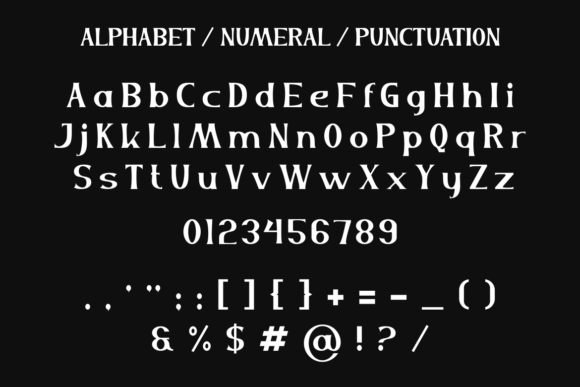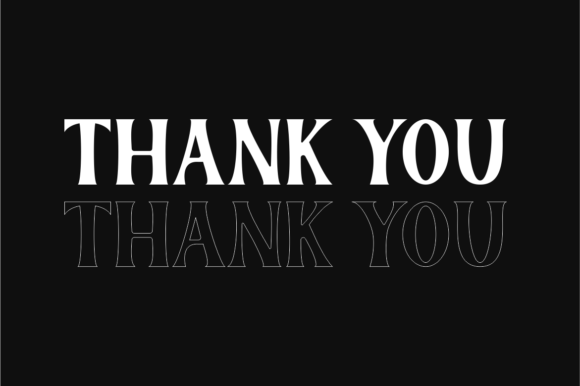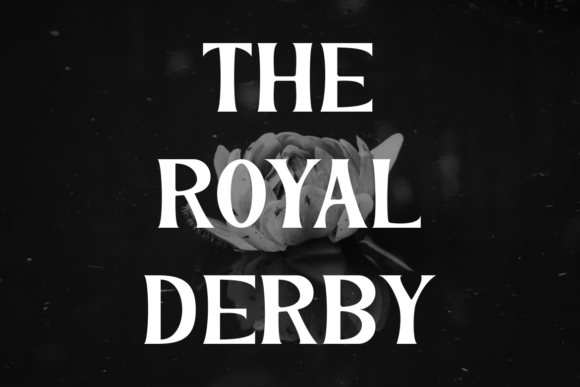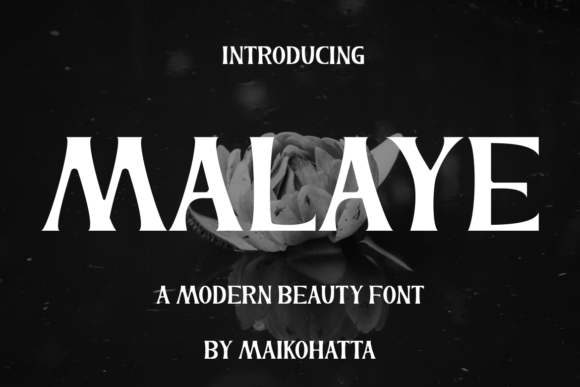
Introduction to Malaye Font
MALAYE is a bold and authentic display font that exudes a strong and distinctive presence.
With its striking and confident letterforms, MALAYE captures attention and adds a touch of character to any design project Its bold strokes and unique shapes create a sense of authority and expressiveness, making it perfect for headlines, logos, and creative branding.